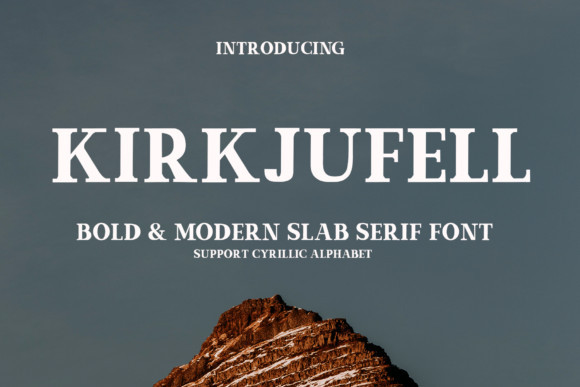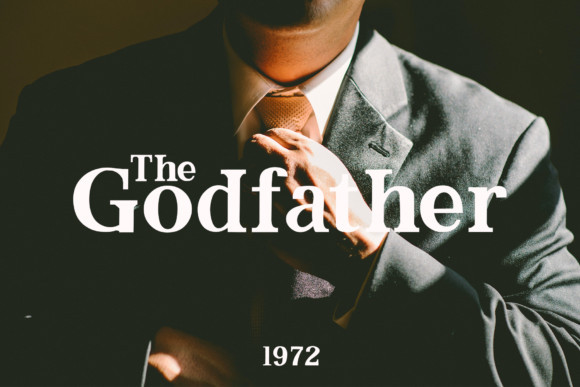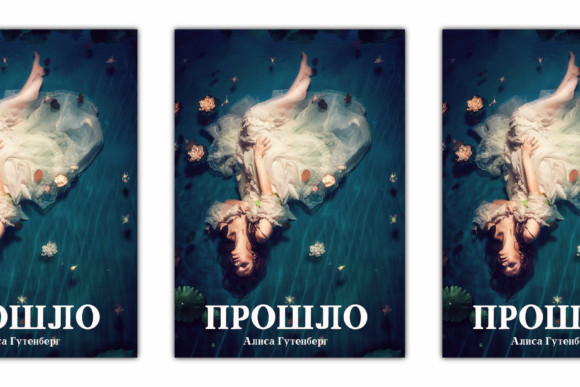
Kirkjufell Font
Kirkjufell FontKirkjufell is a genuine serif font. Expertly designed to make your creation look out of this world, this font will look gorgeous on a variety of ideas.
This font is ideal for writing web designs, business cards, or pretty much anything else that requires a unique touch.